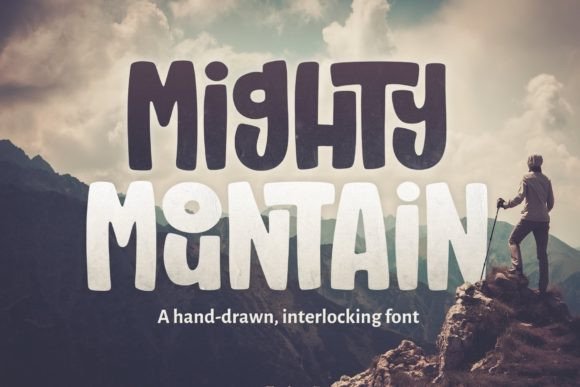
Looking for the best fonts for fun flyers? Look no further than Mighty Mountain Font! Created by the talented Denise Chandler, this hand-drawn display font is perfect for capturing attention and adding a touch of whimsy to your design projects.
Mighty Mountain is not just any ordinary font, it is PUA encoded, which means you can access all of the glyphs and swashes with ease! The font comes with a bunch of interlocking and stacked characters, allowing you to create unique and eye-catching designs that stand out from the rest.
Whether you're designing a poster, flyer, or any other project that requires a playful and fun vibe, Mighty Mountain is the perfect choice. This font is sure to make your design pop and grab the attention of your target audience.